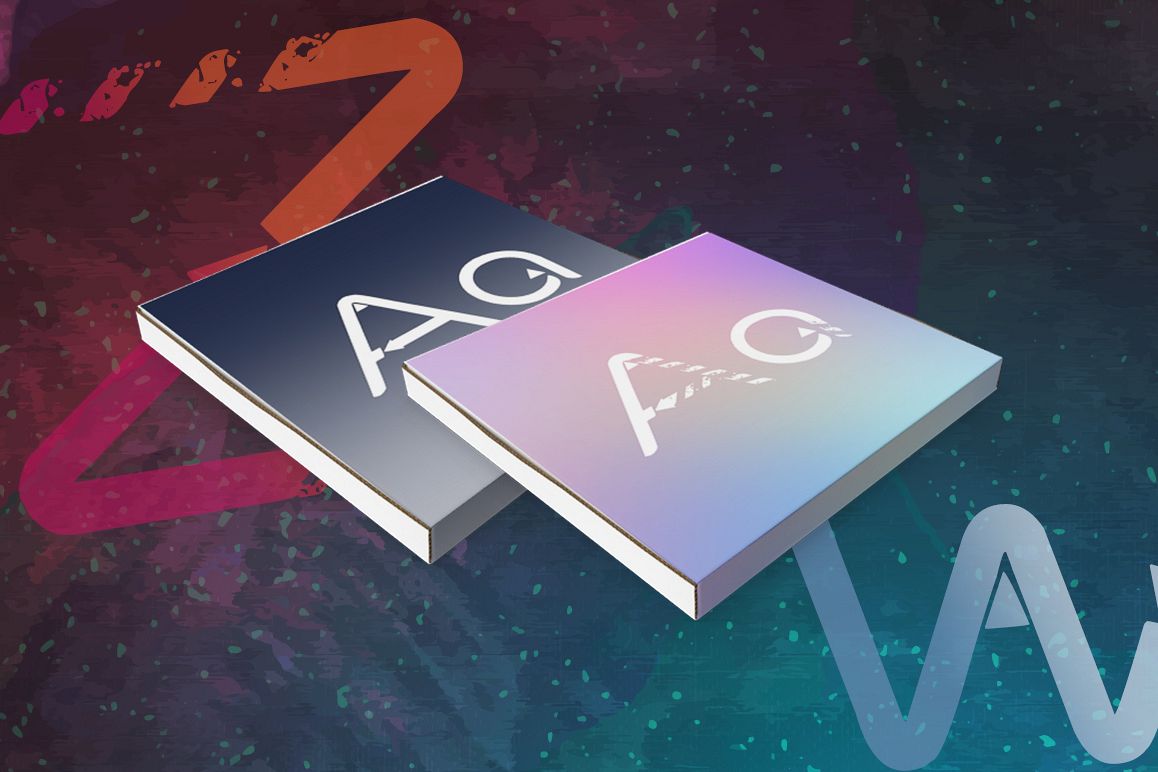
FTF I Robornesia v.1 & v.2
FTF I Robornesia v.1
FTF I Robornesia v.2
Inspired by 'ROBOT' & 'Hi-Tech', the font is very suitable for everything about branding, logo or about techno, automatic, modern, Hi-Tech, robot, future.. etc